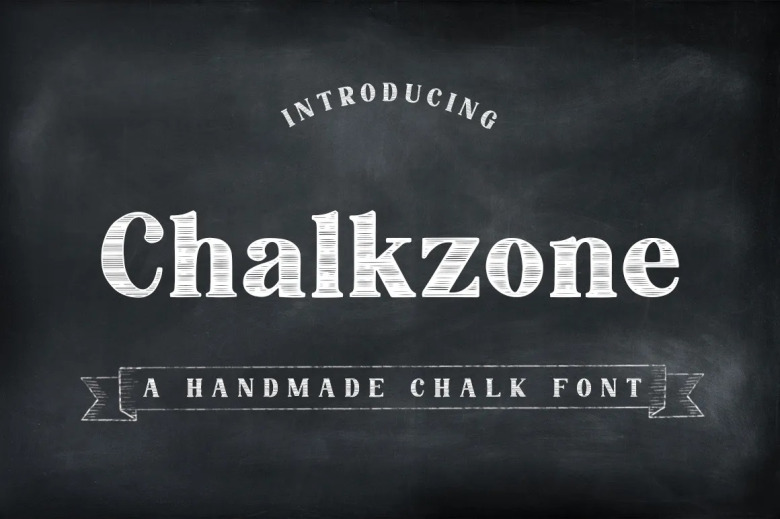
Chalkzone Font
Chalkzone is a free form chalk show text style. It’s adaptable and fits all blackboard cites or your instructive material! How to Apply: This font will make your design more personal and realistic with its authentic look.
Perfect for branding projects, Logo design Clothing Branding, product packaging, magazine headers, or simply as a stylish text overlay to any background image.
Chalkzone Chalk Display Font